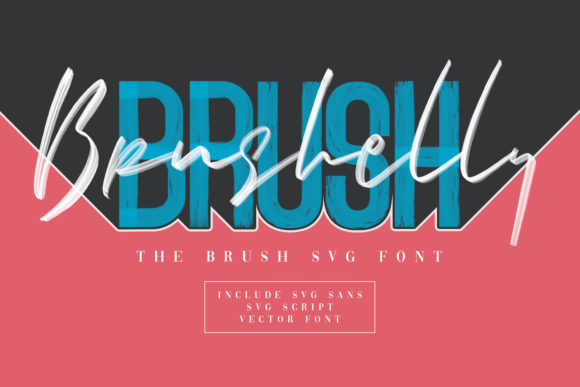
Brushelly Brush: A Versatile Font for Creative Expression
Brushelly Brush is a stunning combination of a sans-serif and handwritten font, crafted with the fluidity and texture of a brush pen. This premium font duo brings a unique blend of modern typography and organic charm to any design project. Whether you're working on branding materials, editorial layouts, or digital content, Brushelly Brush offers a fresh perspective that can elevate your visual storytelling.
Elegant Simplicity Meets Organic Charm
The sans-serif component of Brushelly Brush delivers clean lines and minimalistic elegance, making it ideal for headings, titles, and other display text. Its structured form ensures readability without sacrificing style. Meanwhile, the handwritten element adds a personal, human touch—perfect for signatures, quotes, or any content that benefits from a more casual feel.
Together, these two styles create a harmonious balance between professionalism and approachability. The subtle variations in stroke weight and texture mimic the natural flow of a brush pen, giving your designs an authentic, handcrafted appearance.
Where Brushelly Brush Shines in Design Projects
Brushelly Brush is incredibly versatile and can be used across a wide range of creative applications:
- Branding and Logo Design: The font’s distinct personality makes it a great choice for logos that need to stand out while maintaining a sense of warmth and authenticity.
- Social Media Graphics: Whether you're creating posts, banners, or promotional visuals, Brushelly Brush adds a stylish flair that catches attention and encourages engagement.
- Editorial and Publishing: From magazine covers to blog headers, this font enhances visual hierarchy and helps guide the reader's eye through the content.
- Packaging Design: The handwritten style works well for product labels, packaging illustrations, and brand messaging that wants to feel personal and artisanal.
- Web and Digital Content: Brushelly Brush is optimized for both print and screen use, ensuring that your website, email campaigns, or digital ads maintain a consistent look across platforms.
Designing with Purpose: How Brushelly Brush Influences Perception
The right font can shape how your audience perceives your brand. Brushelly Brush, with its dual character, allows you to communicate different tones depending on the context. The sans-serif style projects clarity and modernity, which is perfect for conveying professionalism and reliability. On the other hand, the handwritten version fosters connection and intimacy, making it ideal for storytelling or customer communication.
When used thoughtfully, Brushelly Brush can help establish a strong brand identity. It supports consistency in visual presentation, which builds recognition and trust with your audience. Its adaptability also means you can maintain a cohesive look across various media, whether it's a business card, website, or social media post.
Practical Tips for Choosing and Using Brushelly Brush
To get the most out of Brushelly Brush, consider the following practical tips:
- Evaluate Project Fit: Assess whether the font aligns with the tone and purpose of your project. For example, the sans-serif variant might be better suited for headlines, while the handwritten style could work well for captions or callout text.
- Test Font Pairings: Experiment with combining Brushelly Brush with complementary fonts to enhance readability and visual interest. Look for fonts that share similar proportions or contrast effectively with the brush-stroke texture.
- Review Included Styles: Check what styles are included in the font package. Many premium fonts offer multiple weights or variants, which can be useful for creating visual depth and hierarchy.
- Consider Readability: While the handwritten style adds character, ensure that it doesn't compromise legibility, especially for body text. Use it sparingly for emphasis rather than as a primary typeface.
Brushelly Brush isn’t just another font—it’s a creative tool that can transform your designs and strengthen your brand’s voice. Whether you're a designer, marketer, or content creator, incorporating this font into your workflow can add a unique dimension to your projects.
Real-World Applications and Design Observations
Let’s explore some real-world examples of how Brushelly Brush can be applied effectively:
Case Study 1: Brand Packaging
A small artisanal soap company used the handwritten style of Brushelly Brush for their product labels. The soft, flowing script gave the packaging a personal and handmade feel, which resonated well with eco-conscious consumers.
Case Study 2: Website Redesign
A lifestyle blog incorporated the sans-serif variant of Brushelly Brush for headlines and navigation menus. The clean, modern look improved readability and helped streamline the user experience.
Case Study 3: Social Media Campaign
An online boutique paired both styles of Brushelly Brush for a seasonal promotion. The sans-serif was used for main headlines, while the handwritten style added a playful touch to promotional messages and testimonials.
These examples illustrate how Brushelly Brush can be tailored to suit different needs and contexts, reinforcing its value as a go-to font for creative professionals.
Whether you're looking to inject a bit of personality into your next project or build a cohesive brand identity, Brushelly Brush offers a compelling solution. Its blend of structure and spontaneity makes it a valuable addition to any designer’s font library, ready to bring your ideas to life with style and substance.